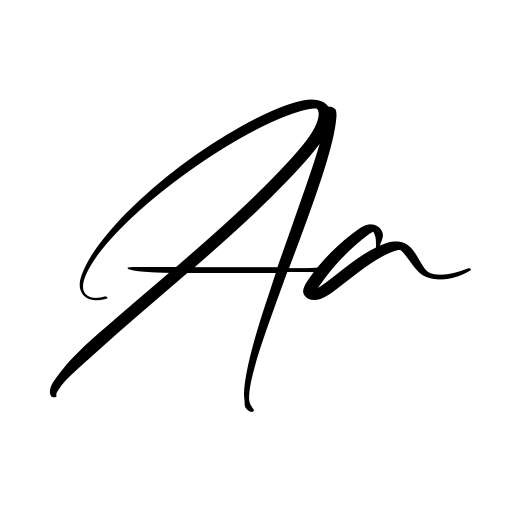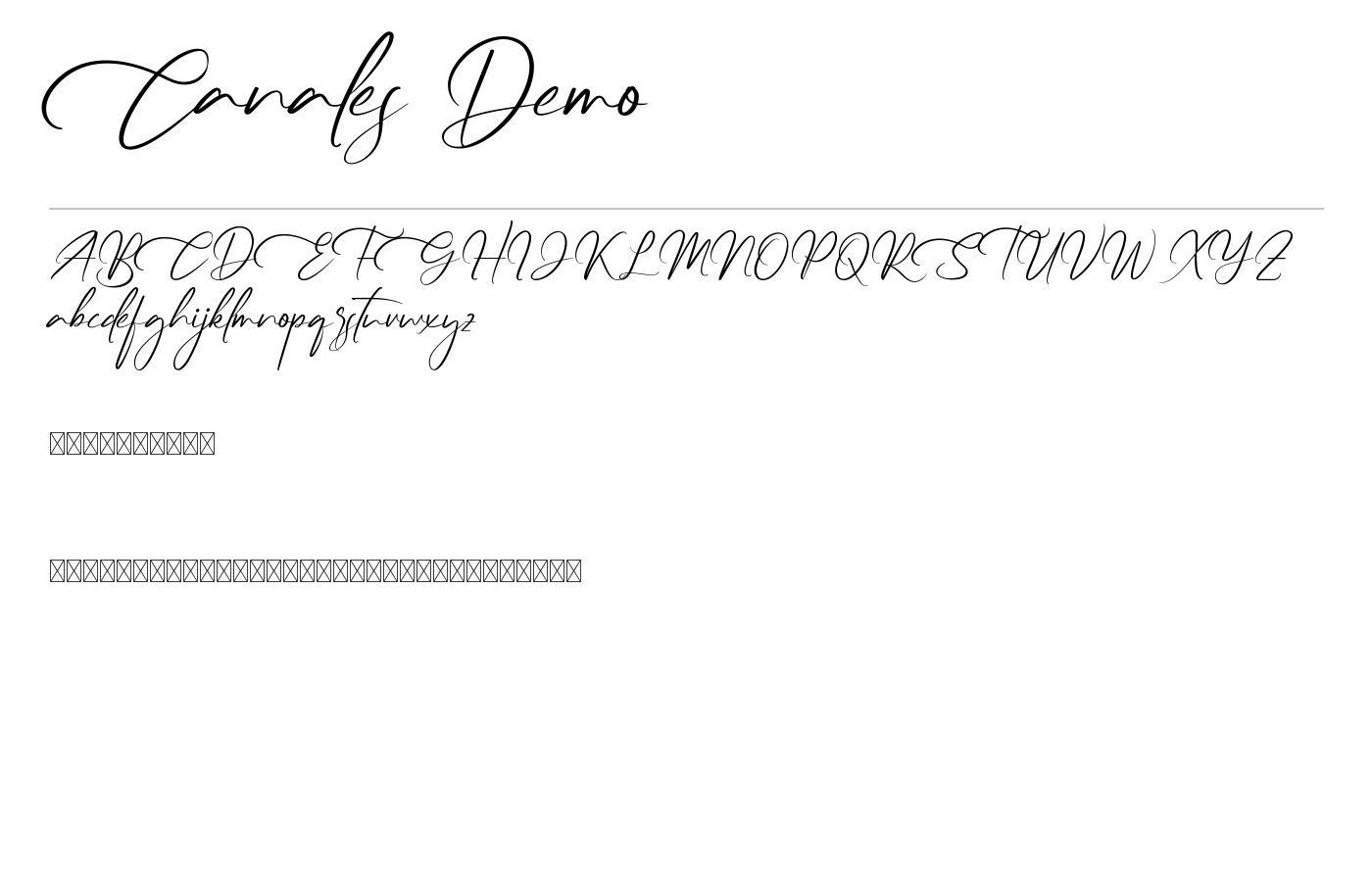
Canales Demo is a delicate, modern script font featuring elegant, flowing strokes that mimic sophisticated handwriting. With its thin lines and graceful curves, it conveys a sense of luxury and refinement, making it ideal for branding, invitations, and other designs that seek a personal, stylish touch. Its airy, handwritten style works best in headlines or decorative text where a light, artistic feel is desired.
Canales Demo Font
About Canales Demo Font